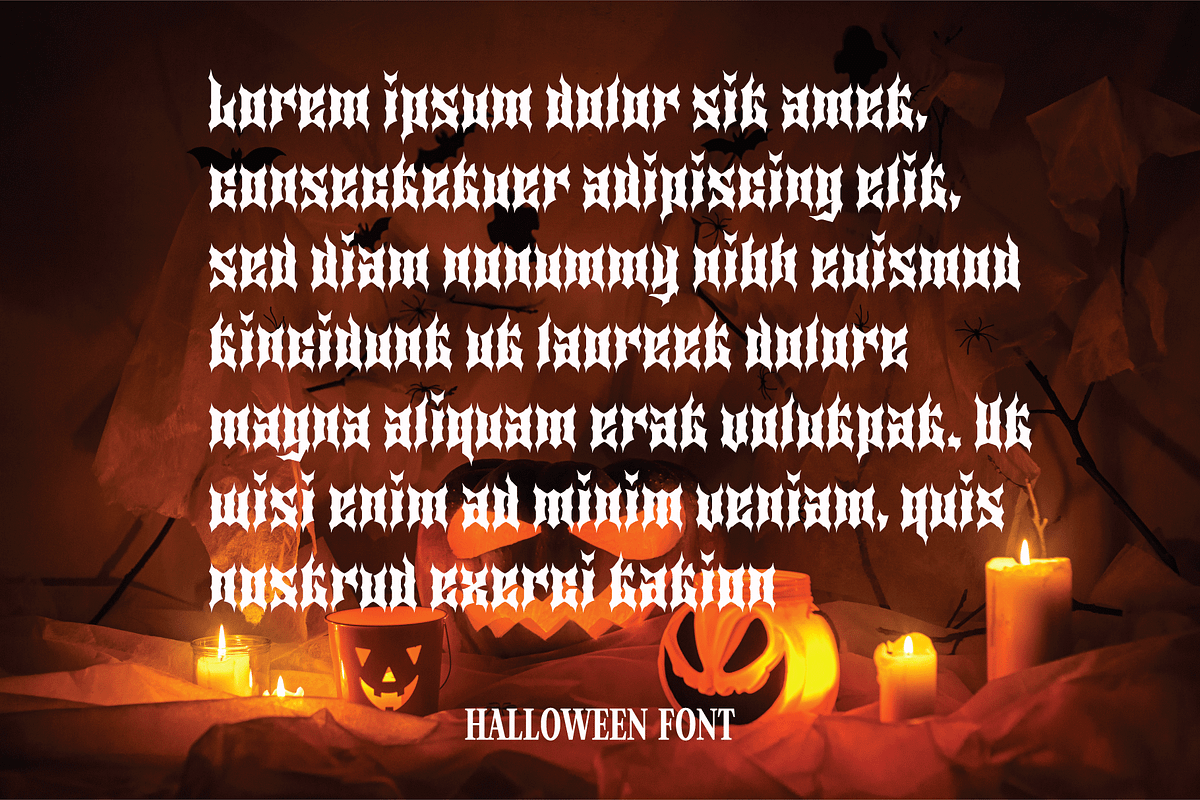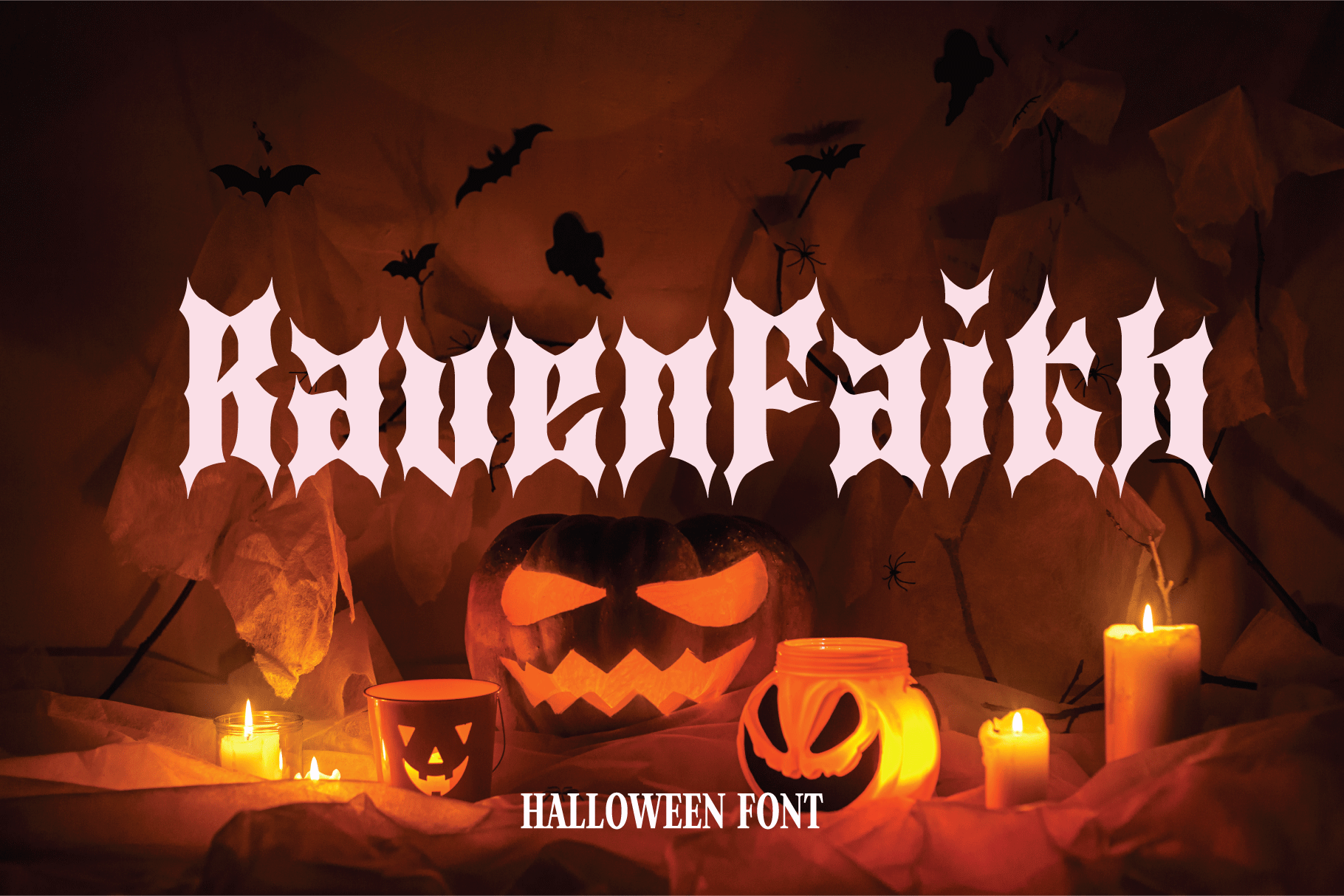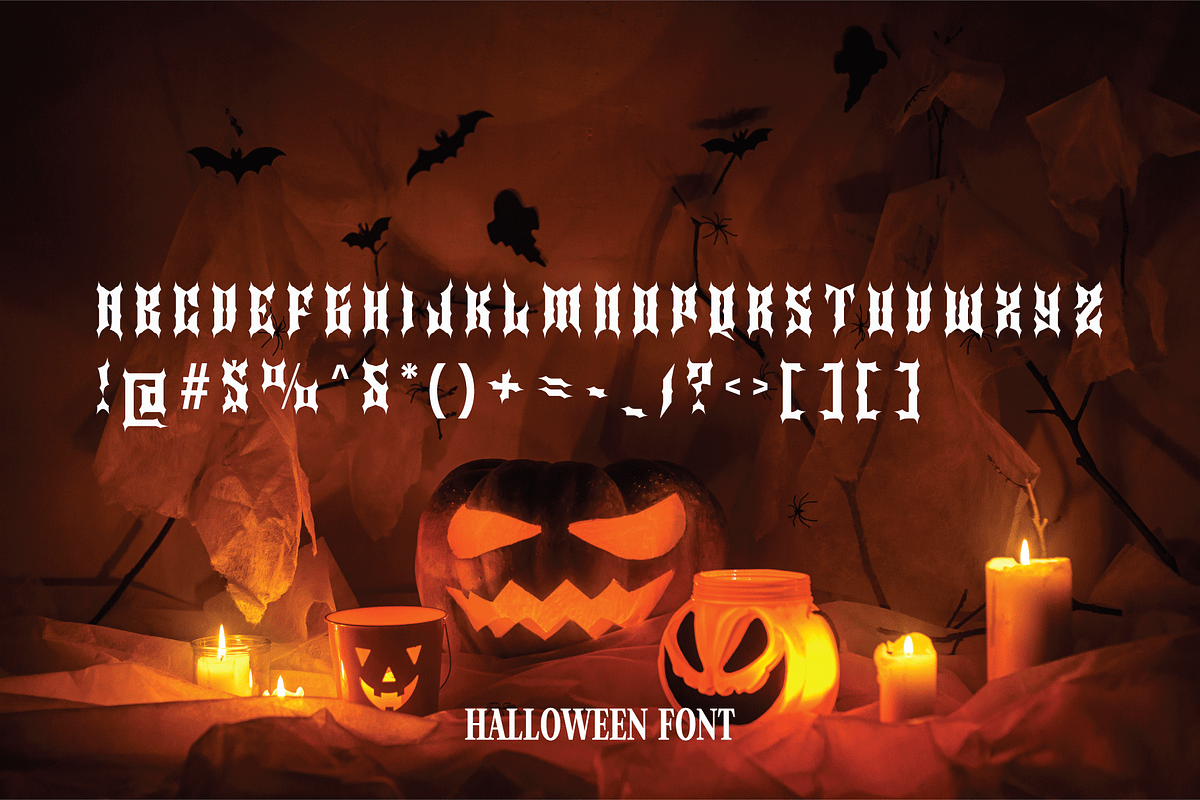
Raven Faith - Halloween font
Presenting Raven Faith a display font inspired by sharp rose thorns, has a horror impression, sharp angles also add a mystical impression and is ideal for use in designs with a Halloween or gothic theme.
Raven Faith has alternatives at the beginning and the end, as well as several ligatures that will provide options for your design.